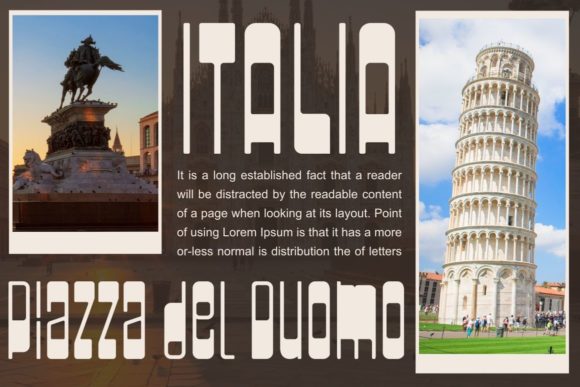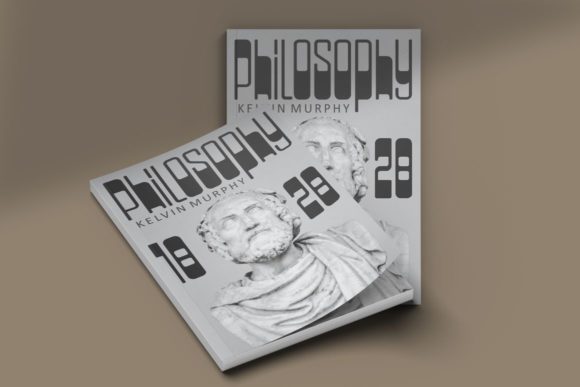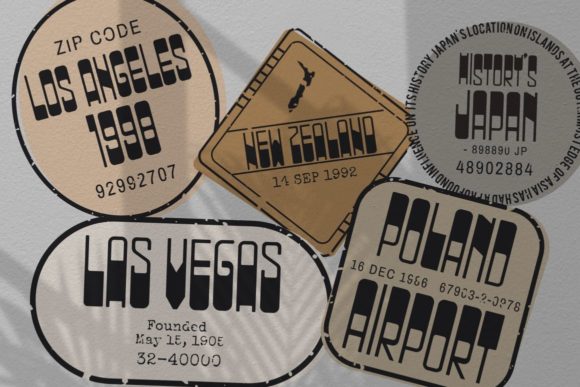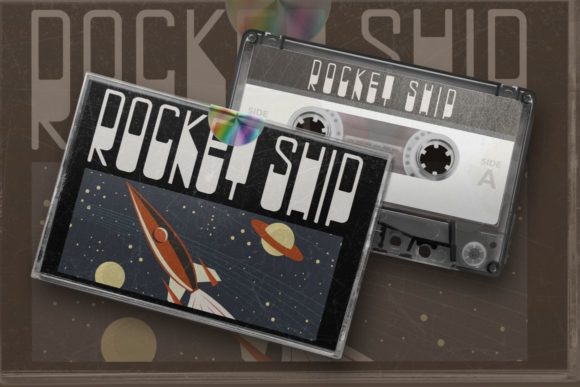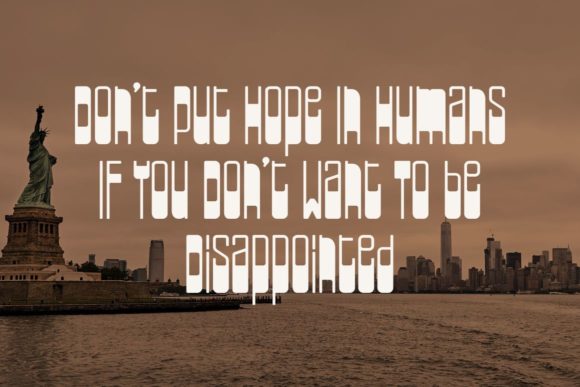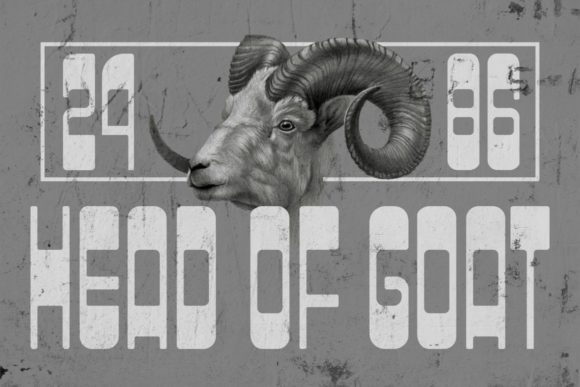
Bulky Book Font: The Ultimate Display Font for Bold Designs
Are you tired of using the same old fonts for your designs? Do you want to add a touch of futurism and boldness to your posters, flyers, and menus? Look no further than Bulky Book Font, a stunning display font that’s perfect for making a statement. In this article, we’ll explore the features and benefits of Bulky Book Font, and show you how to make the most of its endless possibilities.
What is Bulky Book Font?
Bulky Book Font is a bold, futuristic, and cool display font that’s designed to make your designs stand out. With its unique and edgy style, this font is perfect for designers and crafters who want to add a touch of modernity to their work. Whether you’re creating a food menu, poster, flyer, or print, Bulky Book Font is the perfect choice.
Key Features of Bulky Book Font
- Bold and Futuristic Design: Bulky Book Font features a bold and futuristic design that’s perfect for making a statement.
- Cool Display Font: This font is designed to be used as a display font, making it perfect for headlines, titles, and other prominent text.
- Endless Possibilities: With Bulky Book Font, the possibilities are endless. Use it for food menus, posters, flyers, prints, and more.
Benefits of Using Bulky Book Font
So why should you use Bulky Book Font for your designs? Here are just a few benefits:
- Adds a Touch of Modernity: Bulky Book Font adds a touch of modernity to your designs, making them stand out from the crowd.
- Perfect for Bold Designs: If you want to create bold and eye-catching designs, Bulky Book Font is the perfect choice.
- Increases Readability: Despite its bold design, Bulky Book Font is easy to read, making it perfect for use in headlines and titles.
- Versatile: Bulky Book Font can be used for a wide range of designs, from food menus to posters and flyers.
Tips and Tricks for Using Bulky Book Font
Here are a few tips and tricks for using Bulky Book Font:
- Use it Sparingly: While Bulky Book Font is bold and eye-catching, it can be overwhelming if used too much. Use it sparingly to make a statement.
- Pair it with Other Fonts: Pair Bulky Book Font with other fonts to create a unique and interesting design.
- Experiment with Colors: Experiment with different colors to make your design stand out.
In conclusion, Bulky Book Font is a bold, futuristic, and cool display font that’s perfect for making a statement. With its unique and edgy style, this font is perfect for designers and crafters who want to add a touch of modernity to their work. Whether you’re creating a food menu, poster, flyer, or print, Bulky Book Font is the perfect choice. So why wait? Download Bulky Book Font today and explore its endless possibilities!